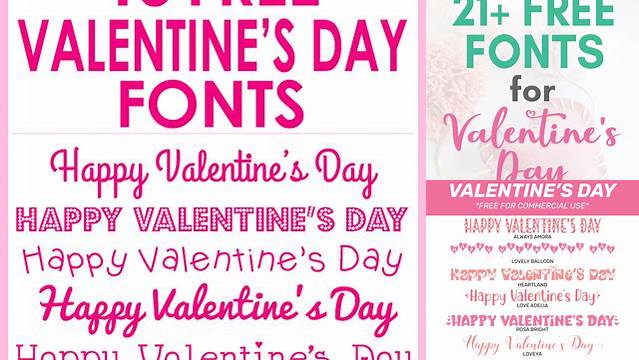
Valentine's Day Fonts: Copy & Paste For Instagram
Valentine's Day is a special time to express your love and affection, and what better way to do so than with the perfect font for your Instagram posts? Choosing the right font can significantly enhance your message, making it more engaging and visually appealing. In this article, we’ll explore a variety of Valentine's Day fonts that you can easily copy and paste to elevate your Instagram game. So, whether you're crafting a heartfelt message for your loved one or promoting a Valentine's Day special for your business, we've got you covered.
Why Fonts Matter on Instagram
Fonts play a crucial role in conveying the tone and style of your message on Instagram. A well-chosen font can capture the essence of Valentine's Day, adding a touch of romance, playfulness, or elegance to your posts. Think about it: a handwritten-style font can evoke a sense of intimacy and personal connection, while a bold, modern font might be perfect for a striking announcement. Using the right font helps your content stand out in a sea of posts, grabbing the attention of your followers and making your message more memorable. Moreover, consistent use of specific fonts can contribute to your brand's visual identity, making your posts instantly recognizable. So, guys, don't underestimate the power of typography – it's a game-changer!
Top Valentine's Day Fonts for Instagram
Choosing the right font can be overwhelming, so here are some top recommendations for Valentine's Day: Script fonts like Brush Script and Pacifico add a romantic and personal touch, perfect for expressing heartfelt emotions. Serif fonts such as Times New Roman or Georgia bring a classic and elegant feel, ideal for sophisticated announcements or quotes. Sans-serif fonts like Arial or Helvetica offer a clean and modern look, great for straightforward messages and promotions. For a playful and whimsical vibe, consider using display fonts like Lobster or Playfair Display. Each font brings a unique flavor to your message, so experiment to find the one that best captures your Valentine's Day spirit. Remember, the goal is to choose a font that complements your content and resonates with your audience.
Romantic Script Fonts
When it comes to expressing love and affection, nothing beats the elegance of script fonts. These fonts mimic the flow of handwriting, adding a personal and intimate touch to your Valentine's Day posts. Imagine using a delicate script font to share a heartfelt quote or a handwritten-style font to announce a special date night. Fonts like Aphrodite Pro and * চ্যানেkript* are particularly well-suited for romantic themes, with their graceful curves and elegant flourishes. They evoke a sense of sophistication and charm, making your message feel more special and sincere. However, it's essential to use script fonts sparingly, as they can be harder to read in large blocks of text. Use them for headlines, short phrases, or to highlight key words in your captions. Combining a script font with a simpler, more readable font for the body of your text can create a visually appealing and balanced design. The right script font can transform your Instagram posts into a love letter to your followers.
Elegant Serif Fonts
For a touch of class and sophistication, serif fonts are an excellent choice. These fonts, characterized by their small decorative strokes (serifs) at the end of each letter, exude a timeless elegance that's perfect for Valentine's Day announcements, quotes, or even showcasing your brand's premium offerings. Garamond, Bodoni, and Didot are classic serif fonts that can elevate your Instagram posts with their refined aesthetic. They convey a sense of tradition and trustworthiness, making them ideal for brands that want to project a sophisticated image. When using serif fonts, pay attention to the spacing between letters and lines to ensure readability. A well-spaced serif font can make your message look polished and professional. Consider using a serif font for headlines or titles, paired with a simpler sans-serif font for the body of your text. This combination can create a visually appealing contrast that draws the reader's eye and enhances the overall impact of your post. With the right serif font, your Valentine's Day posts will exude an air of timeless romance and sophistication.
Modern Sans-Serif Fonts
If you're aiming for a clean, contemporary look, sans-serif fonts are the way to go. These fonts, lacking the decorative serifs found in serif fonts, offer a minimalist aesthetic that's perfect for modern Valentine's Day campaigns. Fonts like Helvetica, Arial, and Roboto are popular choices for their simplicity and readability. They convey a sense of clarity and straightforwardness, making them ideal for delivering your message with impact. Sans-serif fonts are particularly well-suited for digital platforms like Instagram, where readability is key. Their clean lines and simple shapes make them easy to read on screens of all sizes. When using sans-serif fonts, consider playing with different weights (bold, light, regular) to add visual interest. You can also experiment with letter spacing and line height to optimize readability. Pairing a bold sans-serif font with a lighter weight can create a dynamic and eye-catching design. Whether you're promoting a Valentine's Day sale or sharing a heartfelt message, a modern sans-serif font can help you create a visually appealing and impactful Instagram post.
Font Pairing Tips for Valentine's Day
Combining different fonts can add depth and visual interest to your Instagram posts. Font pairing is an art, but with a few simple guidelines, you can create stunning designs that capture the essence of Valentine's Day. Start by choosing a dominant font for your headlines or titles, and then select a secondary font for the body of your text. A good rule of thumb is to pair a decorative font (like a script or display font) with a simpler, more readable font (like a serif or sans-serif font). This creates a visual hierarchy that guides the reader's eye and ensures readability. Avoid pairing two fonts that are too similar, as this can create a confusing and visually unappealing design. Instead, look for fonts that complement each other in terms of style and weight. For example, you might pair a bold serif font with a light sans-serif font, or a whimsical script font with a clean, modern sans-serif font. Experiment with different combinations until you find a pairing that feels balanced and harmonious. Remember, the goal is to create a design that is both visually appealing and easy to read. With the right font pairing, your Valentine's Day posts will stand out from the crowd and capture the hearts of your followers.
Tools and Resources for Finding Valentine's Day Fonts
Finding the perfect Valentine's Day font can be a fun and creative process. Numerous online resources offer a wide selection of fonts, both free and paid. Websites like Google Fonts, Adobe Fonts, and DaFont are excellent starting points. Google Fonts offers a vast library of free, open-source fonts that you can use for personal and commercial projects. Adobe Fonts provides access to thousands of high-quality fonts as part of an Adobe Creative Cloud subscription. DaFont is a popular resource for finding free fonts, with a wide variety of styles and categories to choose from. When browsing fonts, pay attention to the licensing terms to ensure that you are using the fonts legally. Some fonts are free for personal use only, while others can be used for commercial purposes. In addition to these websites, you can also find inspiration and font recommendations on design blogs and social media platforms like Pinterest and Instagram. Follow designers and typographers to stay up-to-date on the latest font trends and discover new and exciting fonts for your Valentine's Day projects. With a little research and creativity, you can find the perfect fonts to make your Instagram posts truly unforgettable.
Examples of Valentine's Day Instagram Posts Using Different Fonts
To inspire your creativity, here are a few examples of Valentine's Day Instagram posts using different fonts: Imagine a post featuring a romantic quote overlaid on a beautiful image of a sunset, using a delicate script font like * চ্যানেllegeable*. This would be perfect for expressing heartfelt emotions and setting a romantic mood. Or, consider a post announcing a Valentine's Day sale for your business, using a bold sans-serif font like Impact for the headline and a clean serif font like Arial for the details. This would be an effective way to grab attention and convey important information clearly. For a more playful and whimsical approach, you could create a post with a fun illustration and use a display font like Lobster for the text. This would be ideal for engaging your audience and adding a touch of fun to your Valentine's Day campaign. Remember to tailor your font choices to the overall aesthetic of your brand and the message you want to convey. Experiment with different combinations of fonts and images to create visually appealing and engaging Instagram posts that capture the spirit of Valentine's Day. With the right fonts, your Valentine's Day Instagram posts will be sure to spread the love and capture the hearts of your followers.
Choosing the right fonts for your Valentine's Day Instagram posts can make a significant difference in how your message is received. By experimenting with different font styles and pairings, you can create visually appealing and engaging content that captures the essence of this special day. Whether you opt for a romantic script font, an elegant serif font, or a modern sans-serif font, remember to choose fonts that complement your brand and resonate with your audience. And don't forget to use online font generators to easily copy and paste stylish fonts into your Instagram captions and bio. So, guys, get creative, have fun, and let your fonts spread the love this Valentine's Day!